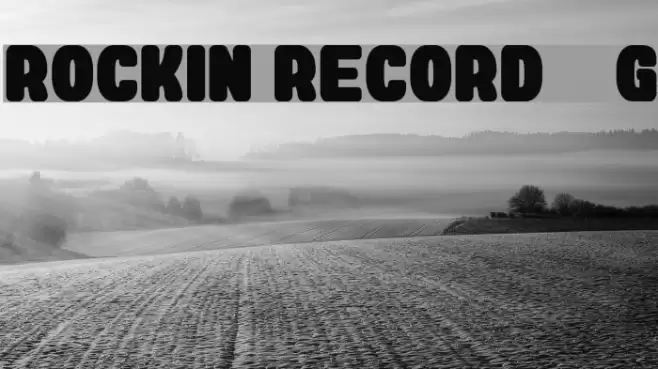
Rockin Record__G Font
Rockin Record__G Description
This font features bold, rounded characters with a playful and retro aesthetic. The letters are uniformly thick, giving them a strong presence on the page. The rounded edges and consistent stroke width contribute to a friendly and approachable feel. The numbers and special characters maintain the same bold and rounded style, ensuring a cohesive look across all elements. This font is ideal for projects that require a touch of nostalgia or a fun, lively vibe.
A bold, rounded font with a retro and playful style from Uncategorized fonts.
- Proposed Projects: Perfect for vintage posters, children's book covers, playful branding, and retro-themed designs.
- Overall Style: Retro